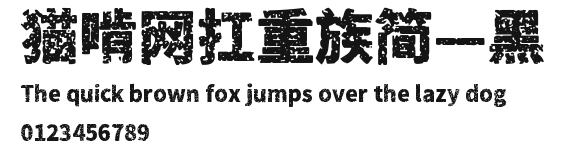
猫啃网扛重族简—黑 Preview
• Font Name: 猫啃网扛重族简—黑
• Full Font Name: 猫啃网扛重族简—黑
• PostScript Name: MaokenHeavyLabourerSC-Gothic-Regular
• Designer: 夜煞之乐2001 (修改自思源黑体 CN Heavy)
• Manufacturer: 猫啃网
• Description: 修改自思源黑体 CN Heavy。
About 猫啃网扛重族简—黑.ttf
猫啃网扛重族简—黑.ttf is a modern, elegant sans-serif font designed for ultimate readability and visual harmony. Perfect for branding, headlines, web design, and print materials.